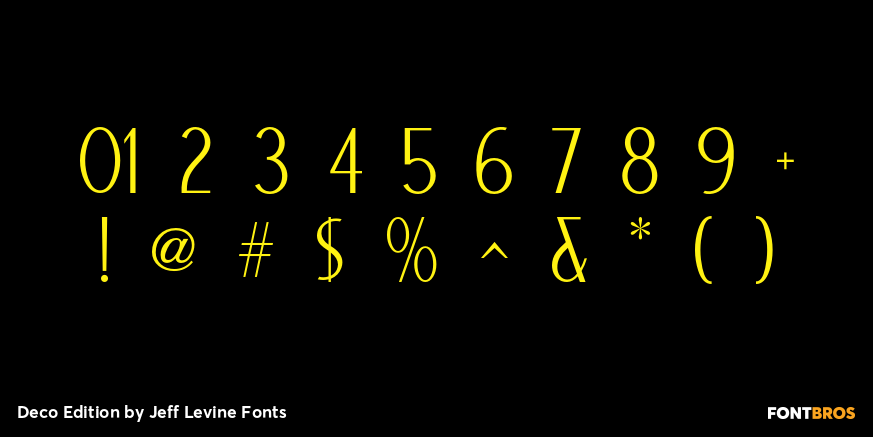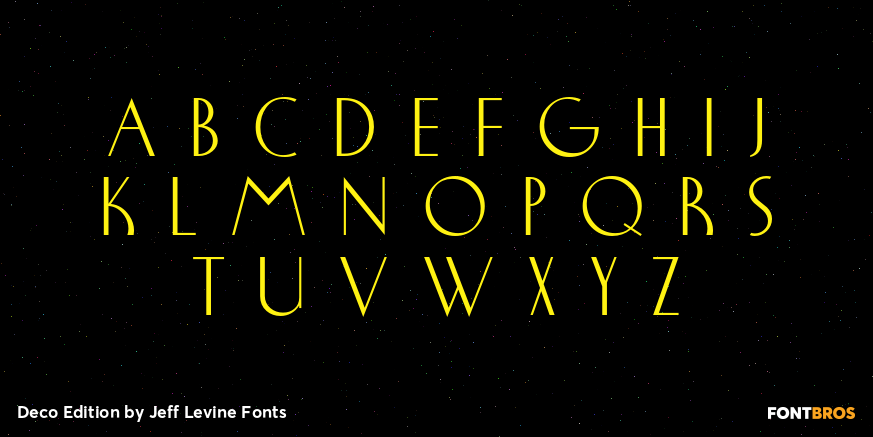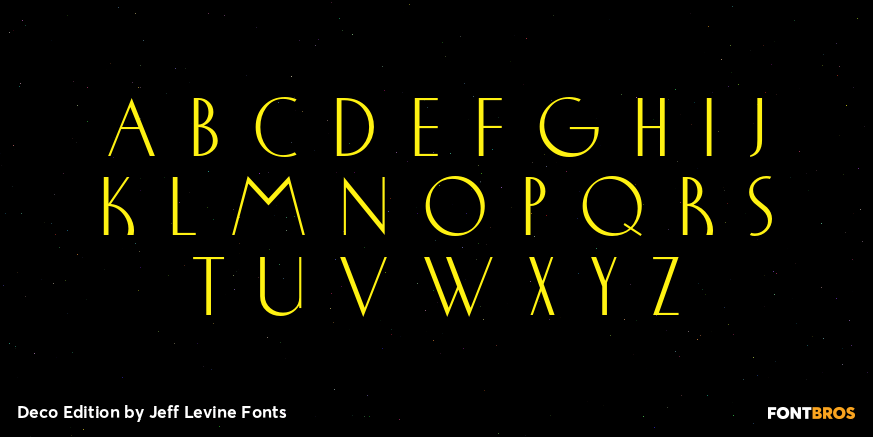
Deco Edition
Deco Edition JNL gets its inspiration from the hand lettered title of a 1943 anthology of musical compositions for schools entitled 'Junior Laurel Songs - Teacher's Edition”, and is available in both regular and oblique versions.
Deco Edition JNL Regular by Jeff Levine Fonts